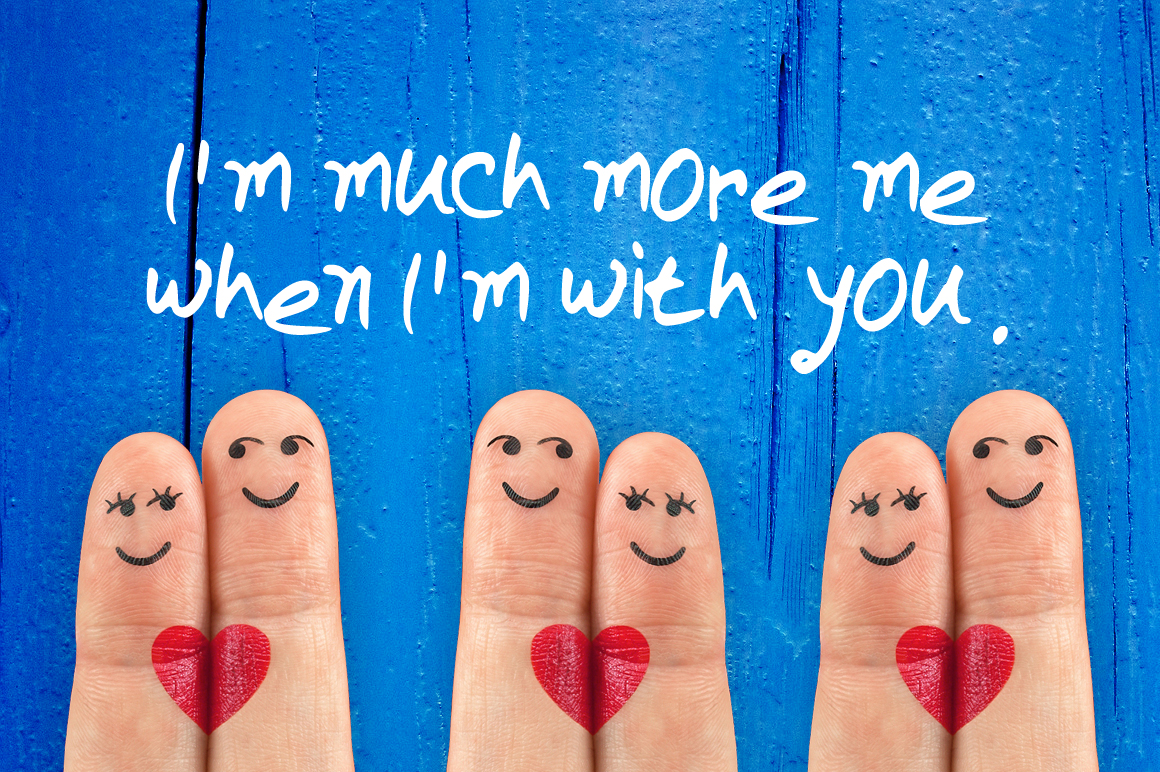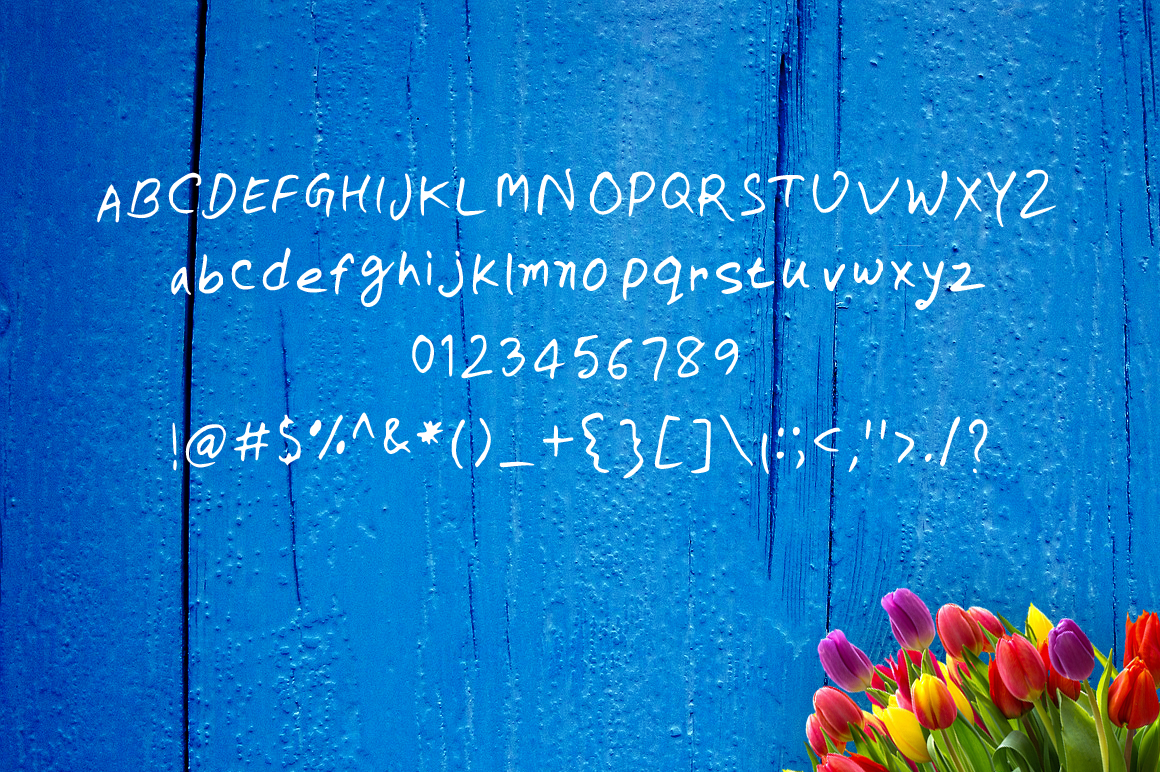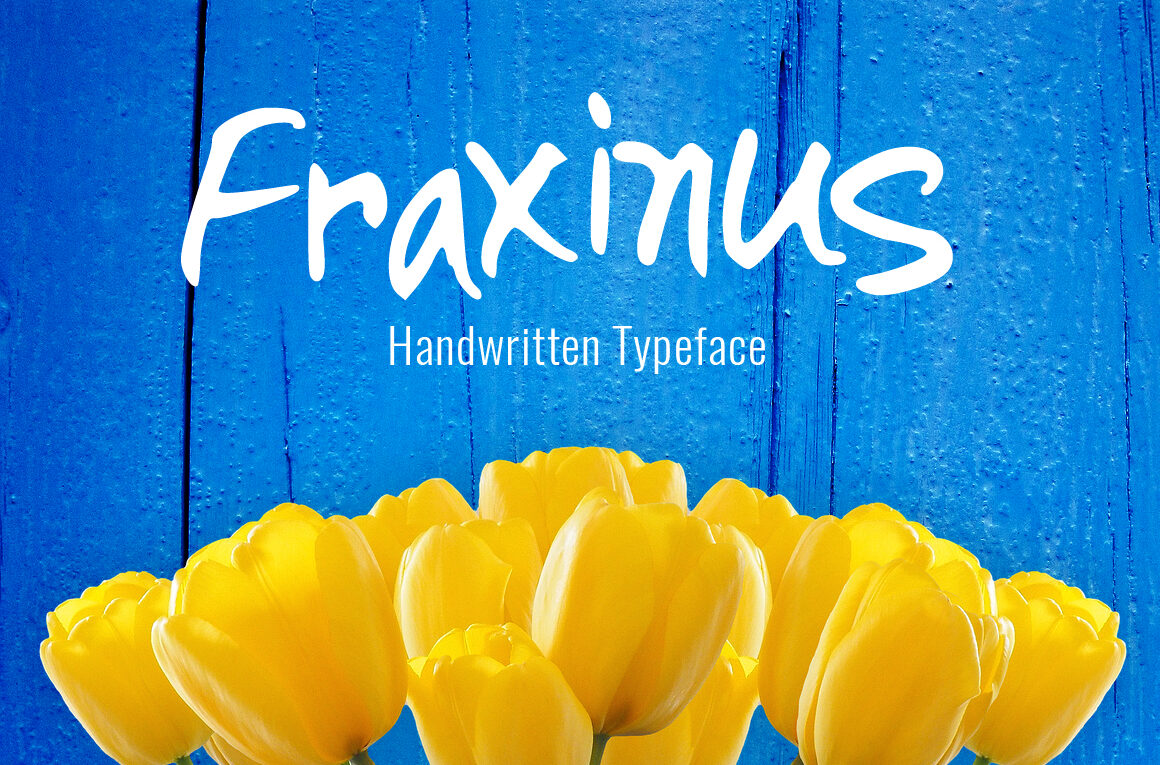
Introducing Fraxinus Font: A Modern Handwritten Marvel
Are you on the hunt for a font that adds a touch of personality to your designs? Look no further than Fraxinus, a modern handwritten font that’s as versatile as it is charming. In this article, we’ll dive into the world of Fraxinus, exploring its unique features, uses, and benefits for designers and crafters alike.
The Story Behind Fraxinus
Fraxinus is a relatively new font on the scene, but it’s quickly making waves in the design community. Its creator, [Font Creator’s Name], drew inspiration from traditional handwriting techniques to craft a font that’s both elegant and approachable. The result is a typeface that’s perfect for a wide range of projects, from branding and advertising to packaging and digital media.
What Makes Fraxinus Special?
So, what sets Fraxinus apart from other fonts on the market? For starters, its handwritten nature gives it a unique, organic feel that’s hard to replicate with more traditional fonts. The letterforms are carefully crafted to be both legible and visually appealing, making it perfect for use in body text or headings.
Another key feature of Fraxinus is its versatility. The font comes in a range of weights and styles, allowing designers to use it in a variety of contexts. Whether you’re looking to create a bold, eye-catching headline or a more subtle, supporting text, Fraxinus has got you covered.
Using Fraxinus in Your Designs
One of the best things about Fraxinus is its incredible flexibility. Here are just a few ideas for how you can use this amazing font in your designs:
- Branding and Identity: Fraxinus is perfect for creating custom logos, business cards, and letterheads that need a personal touch.
- Digital Media: Use Fraxinus to add a touch of warmth and personality to your website, social media graphics, or email marketing campaigns.
- Packaging: Fraxinus is a great choice for product labels, packaging, and point-of-purchase displays.
- Advertising: Create eye-catching ads and promotional materials with Fraxinus, from billboards to brochures.
So, why should designers and crafters choose Fraxinus over other fonts? Here are just a few benefits:
- Unique Look: Fraxinus offers a fresh, modern take on traditional handwriting fonts.
- Ease of Use: The font is incredibly easy to read and works well in a variety of sizes and contexts.
- Customization: With a range of weights and styles to choose from, designers can tailor Fraxinus to suit their specific needs.
- Time-Saving: Fraxinus is a single font that can be used across multiple projects, saving designers time and effort.
Tips for Getting the Most out of Fraxinus
To get the most out of Fraxinus, here are a few tips to keep in mind:
- Experiment with Different Weights: Try out different weights and styles to find the perfect combination for your project.
- Mix and Match: Combine Fraxinus with other fonts to create a unique, visually appealing typography scheme.
- Pay Attention to Kerning: Make sure to adjust the kerning to ensure that your text looks smooth and polished.
In conclusion, Fraxinus is a modern handwritten font that’s perfect for designers and crafters looking to add a touch of personality to their projects. With its unique look, ease of use, and versatility, Fraxinus is an excellent choice for a wide range of applications. Whether you’re working on a branding project, digital media, or packaging, Fraxinus is sure to impress.